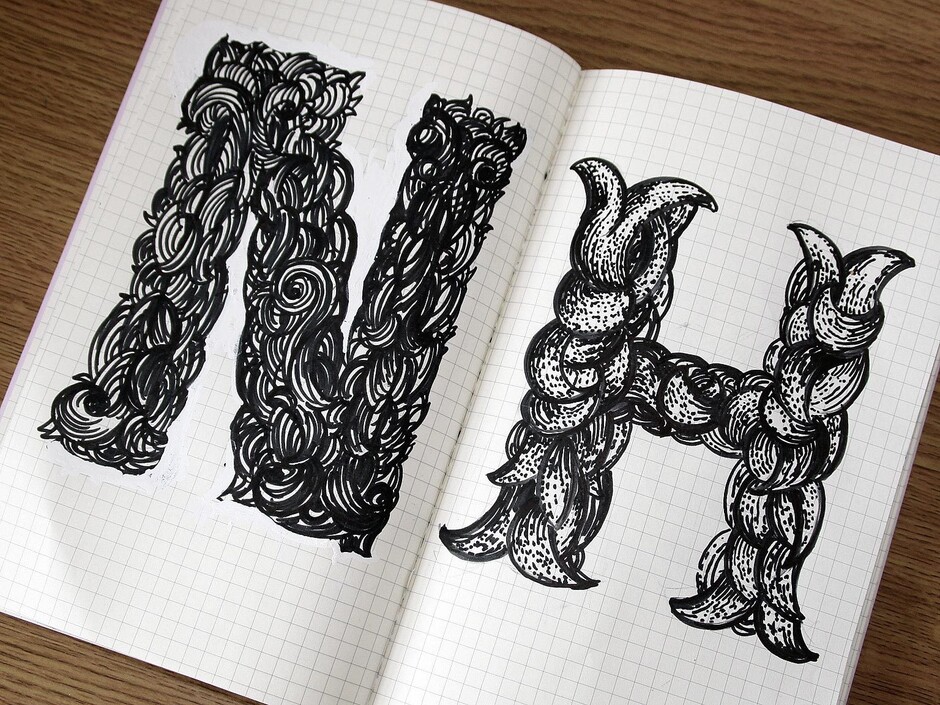
Phil Garnham Studio life
The logotype for ITV, typefaces for Channel Four and BBC One… These and most of Fontsmith’s other creations sprang to life not on a computer screen, but on the pages of our designers’ sketchbooks. Before the high-precision on-screen business of digitally mapping individual characters, the distinctive personality of a new font is pinned down with pencil and paper, sometimes on just one or two letters, or just elements of letters – the crossbar on a ‘t’ or the serif of an ‘n’.
It’s here, in rough sketches and notes, that the gold of great type ideas is found, according to Fontsmith founder, Jason Smith. ‘We employ people based on the strength of their sketchbooks, not their abilities with FontLab. We’re looking for evidence of thinking and ideas, whether in written note form or sketches – it doesn’t matter.’
You’ll find Jason and Fontsmith’s other designers sketching constantly, in meetings, in the studio, on the train, tube or bus. Not every thought ends up as a finished font, so we asked a few of them to show us their favourite pages, and talk us through their deepest, typiest doodles.
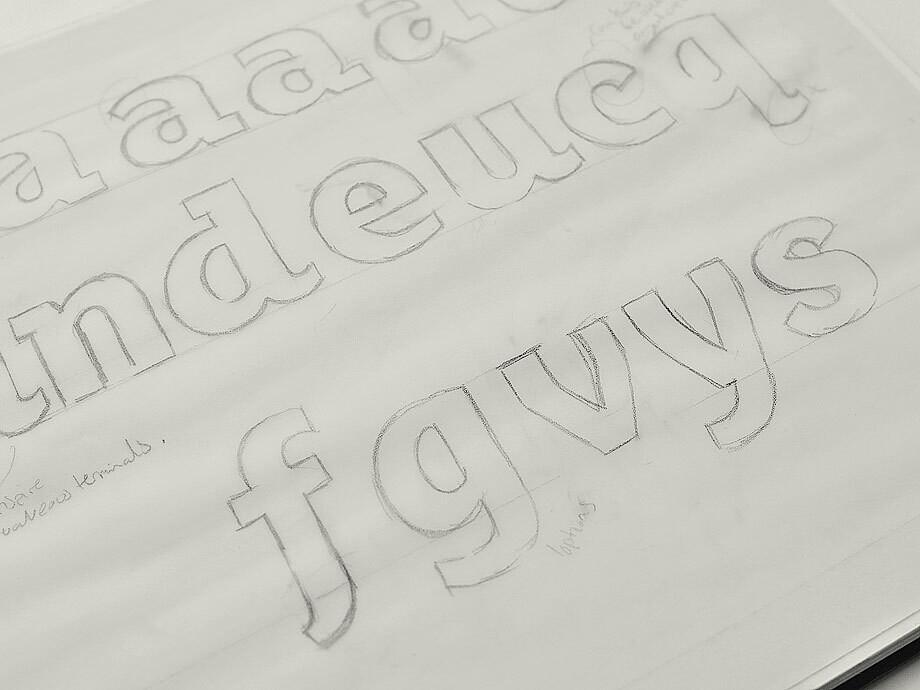
Phil Garnham, Fontsmith typeface design director
Ray Davies found his Lola in a club down in old Soho. Phil Garnham found his in a sketchbook, as an innocent 24-year-old. He’d been sketching the mechanical, modular, slightly cumbersome skeleton of a font, and wanted to make it more ‘usable’.
‘This sketch from 2004 represents the later phases of that transition,’ says Phil, designer of FS Alvar®, FS Emeric®, and FS Kitty®. The turning point is the second line on the page, when Phil turns from slab serifs to flicks. His scribbled note, “Flicks may inspire more creative terminals”, defined the new font’s allure. ‘That led to the idea of playing with the notion of square vs soft… and the name Lola was born.’
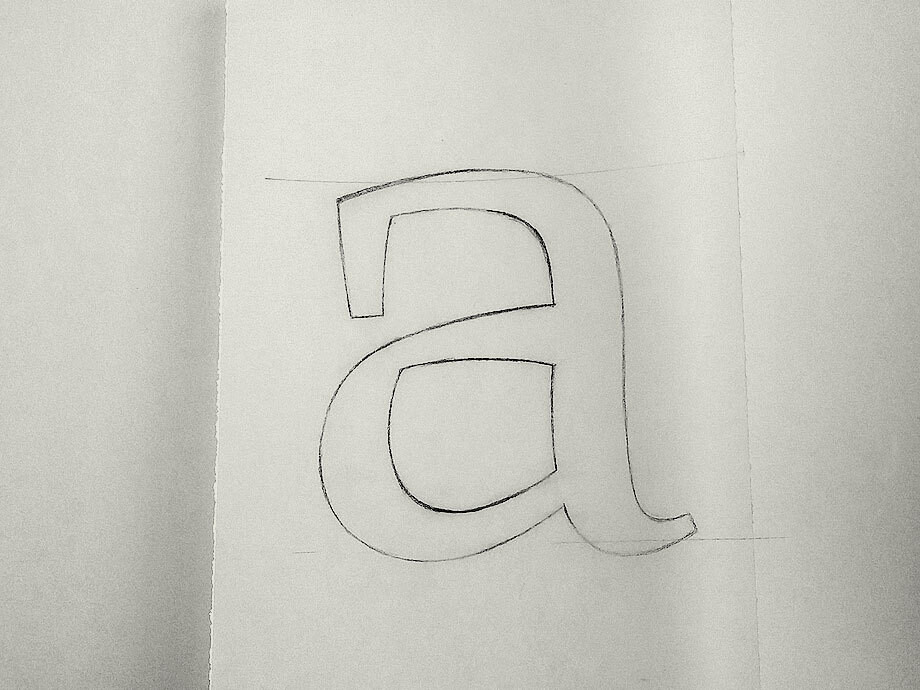
Stuart de Rozario
‘I tend to doodle a lot,’ says Stuart, ‘sometimes letting the subconscious moment flow.’ Stuart’s doodles can evolve into nothing or something major – like FS Millbank®. Stuart’s sample pages, from 2012, bring to light the beginnings of an as-yet unrealised serif typeface that he named Parker, after the very first calligraphic pen he was given, aged nine.
‘It’s a serif with a large, legible x-height, and a sharp, calligraphic, chiselled serif that echoes the movement of a broad-nibbed pen. The lowercase “a” echoes forms of early medieval manuscripts which had a huge influence on my early typographic upbringing.’
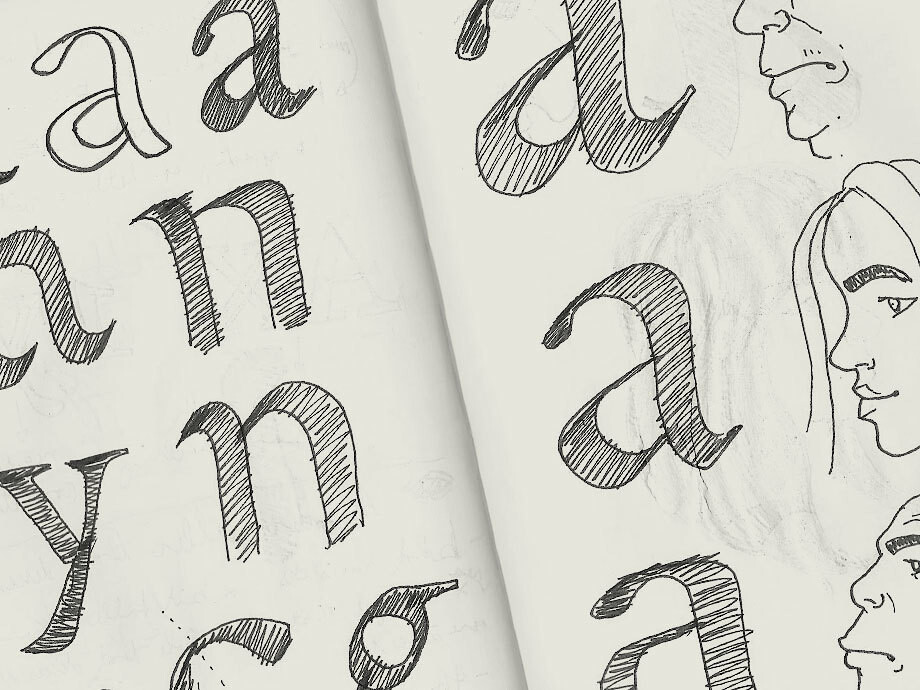
Fernando Mello
It’s not just typographic characters that populate our designers’ private pages. In 2012, Fernando was travelling by train from London to Antwerp to attend the expert class Type design course at the Plantin Institute for Typography… and caught himself musing on characters of a comic-book kind. ‘Grabbing a pen or pencil stimulates me to draw not only type but funny things such as cartoons – I was drawing comics in my younger years.’
While exploring initial ideas for a serif font, he started matching different styles of lowercase ‘a’ with his comic-book human profiles. ‘I guess I had in mind to experiment with the widths and character of the font.’
It was the start of something. Watch out for a high-contrast serif font soon to be released – the product of Fernando’s character development.
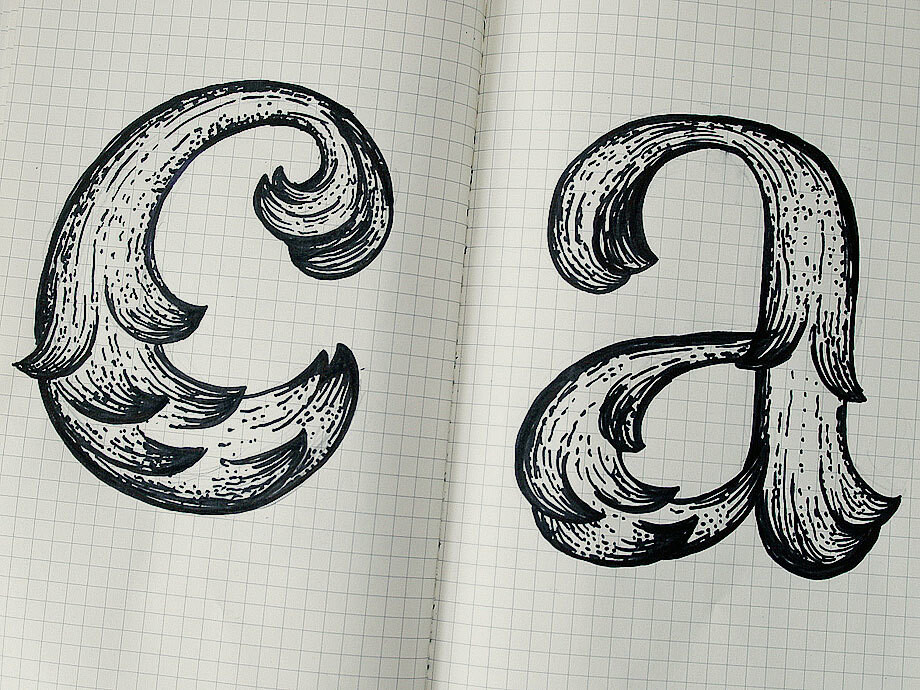
Krista Radoeva
Krista can allow herself to ‘go crazy’ in her sketchbooks now: ‘I don’t spend hours on a single sketch, I don’t worry if I mess it up.’
It wasn’t always the way. Her love of drawing ornamented lettering had led her to study typeface design in The Hague. ‘One of the first things they told me there was to “stop drawing like an artist” and get rid of my pencils. So I quickly got used to drawing really large letters on tracing paper, using fat markers and white-out. I stopped treating sketches as precious artworks, started using them as a way to quickly test ideas.
‘It was a very important step that really changed the way I develop typefaces now – constantly switching between digital and hand-drawn.’